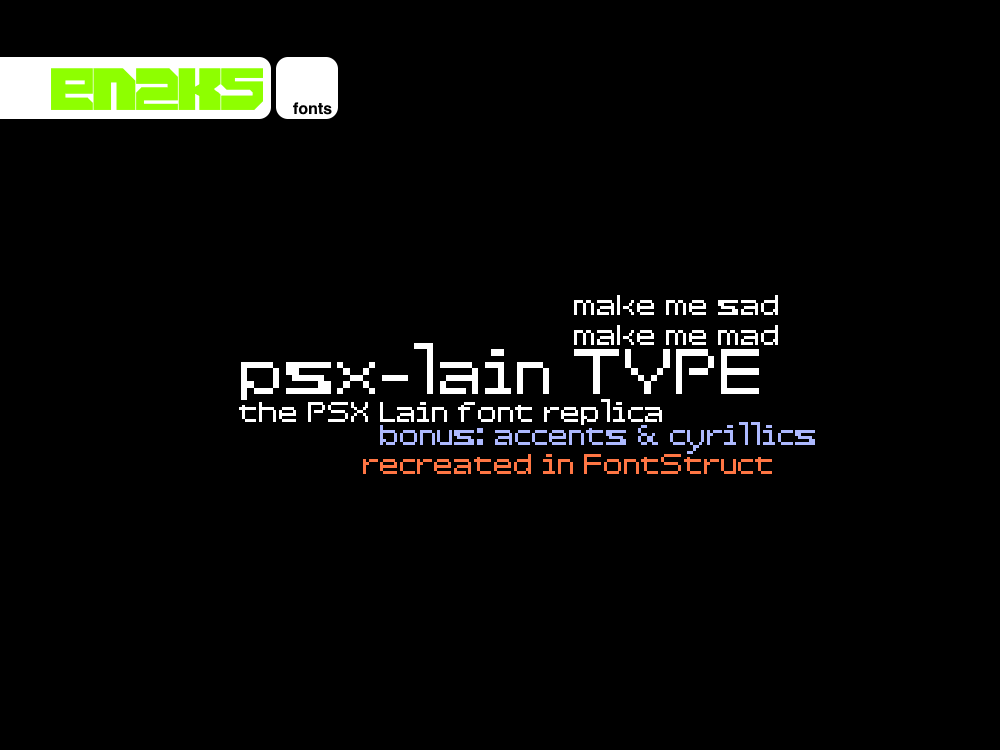
Yep, I was bored so I desided to recreate the PSX Lain font on to FontStructalthough I don't watch Serial Expirements Lain the anime or played the PSX game despite seeing some gameplay footage. I just did this for fun and I just really wanted to recreate this font because why not? I feel like this is going to blow up but oh well it depends...
I also wanted to add Hiragana & Katakana aka Japanese letters but I didn't want to do that, anyways enjoy the font.